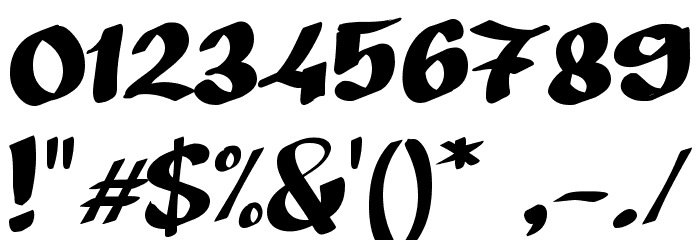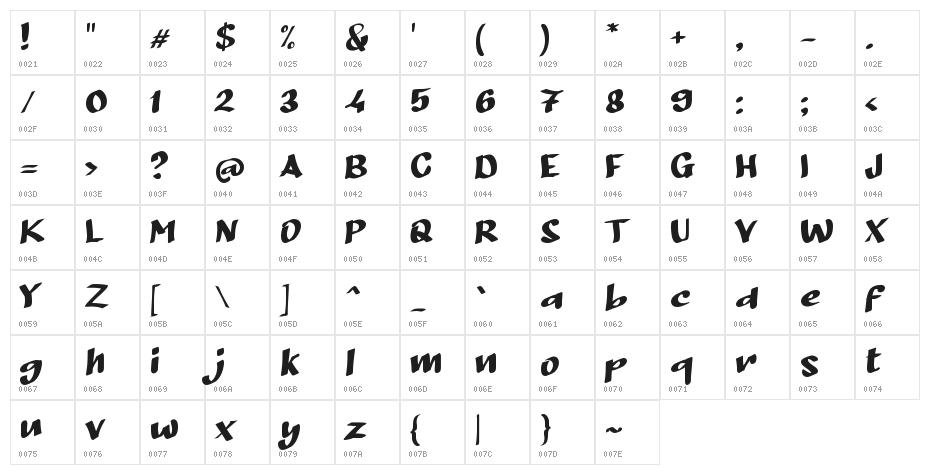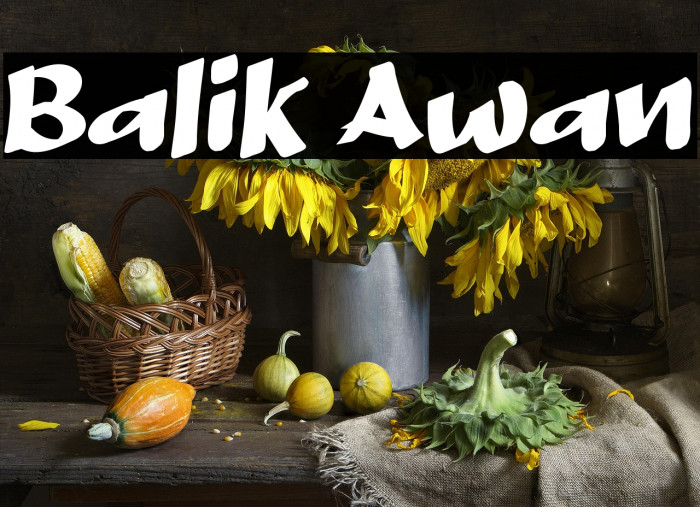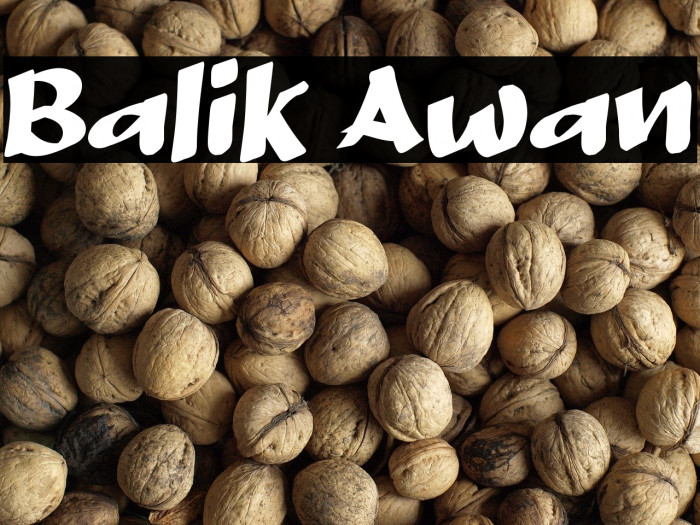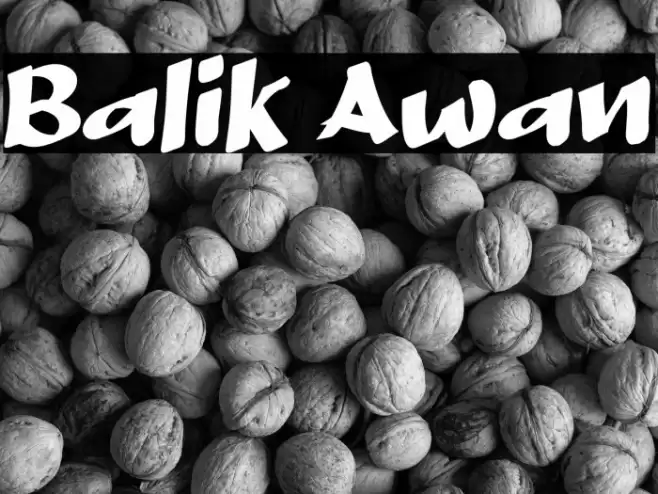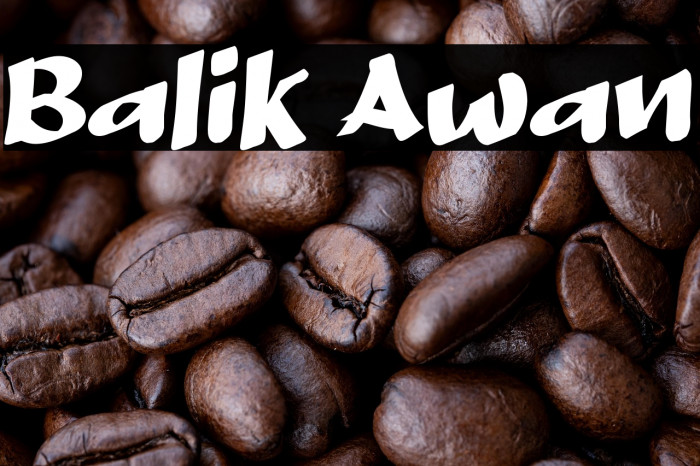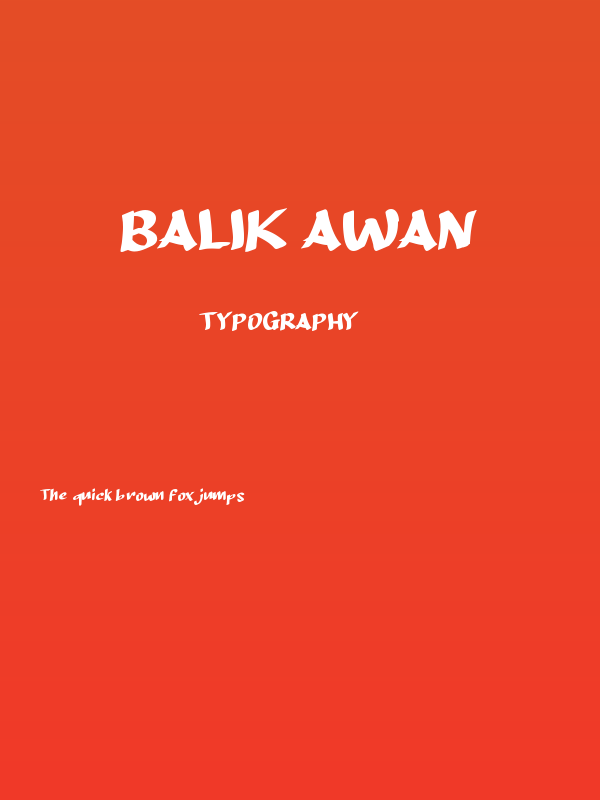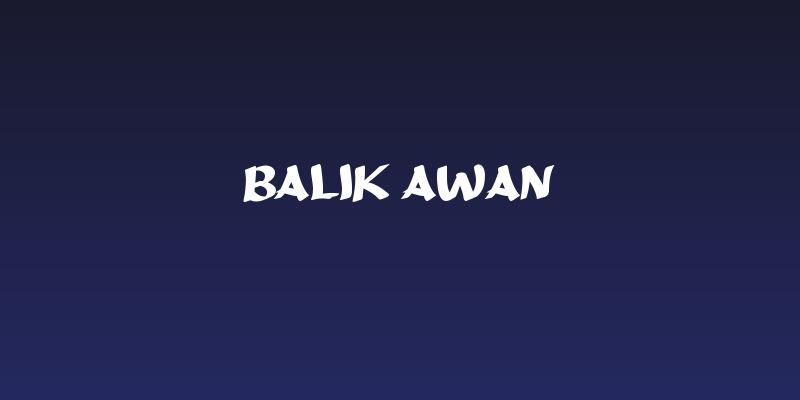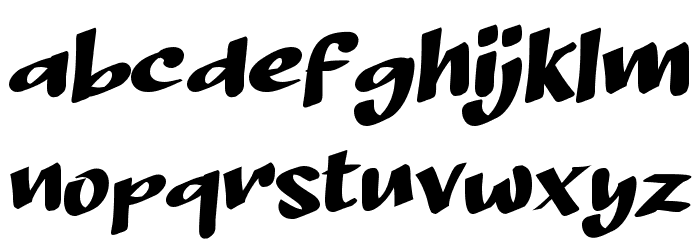
Balik Awan Font
Balik Awan Description
This font features a bold and dynamic script style with a strong presence. The characters are designed with a brush-like appearance, giving them a hand-painted feel. The uppercase letters are slightly more angular, while the lowercase letters maintain a fluid and cursive quality. The numbers and special characters follow the same stylistic approach, ensuring consistency across all glyphs. The font's thick strokes and high contrast make it highly legible and impactful, suitable for creating eye-catching designs.